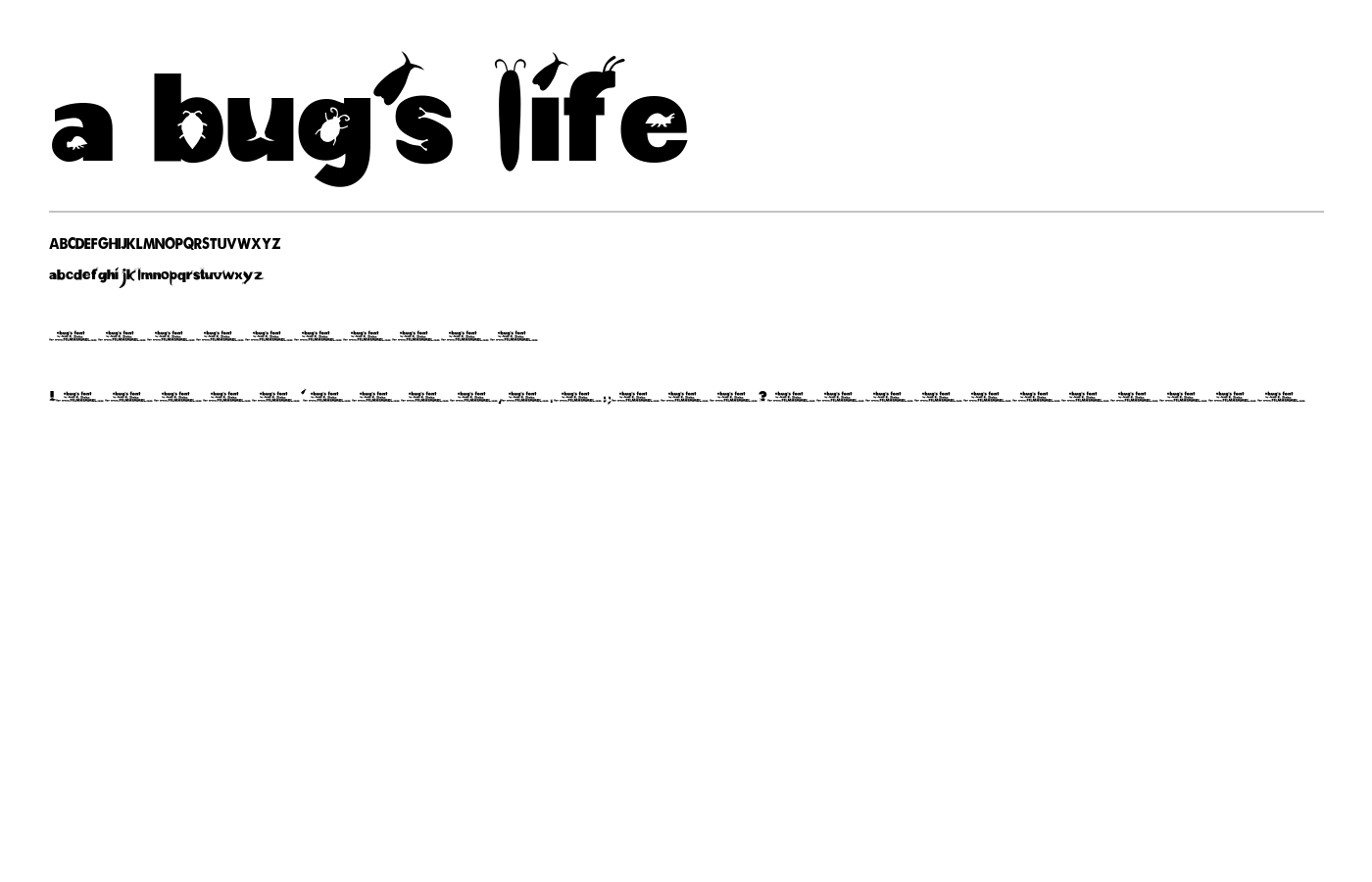
A Bug's Life Font is a bold, playful sans serif typeface characterized by whimsical bug illustrations integrated into each letter, adding a fun and imaginative touch. Its chunky, rounded letterforms with uniform stroke weight create a friendly and approachable vibe, making it ideal for children's projects, playful branding, and creative designs that want to evoke a lighthearted, nature-inspired mood. This font works best in headlines, logos, and packaging where a lively, informal style is desired.
a bug's life Font